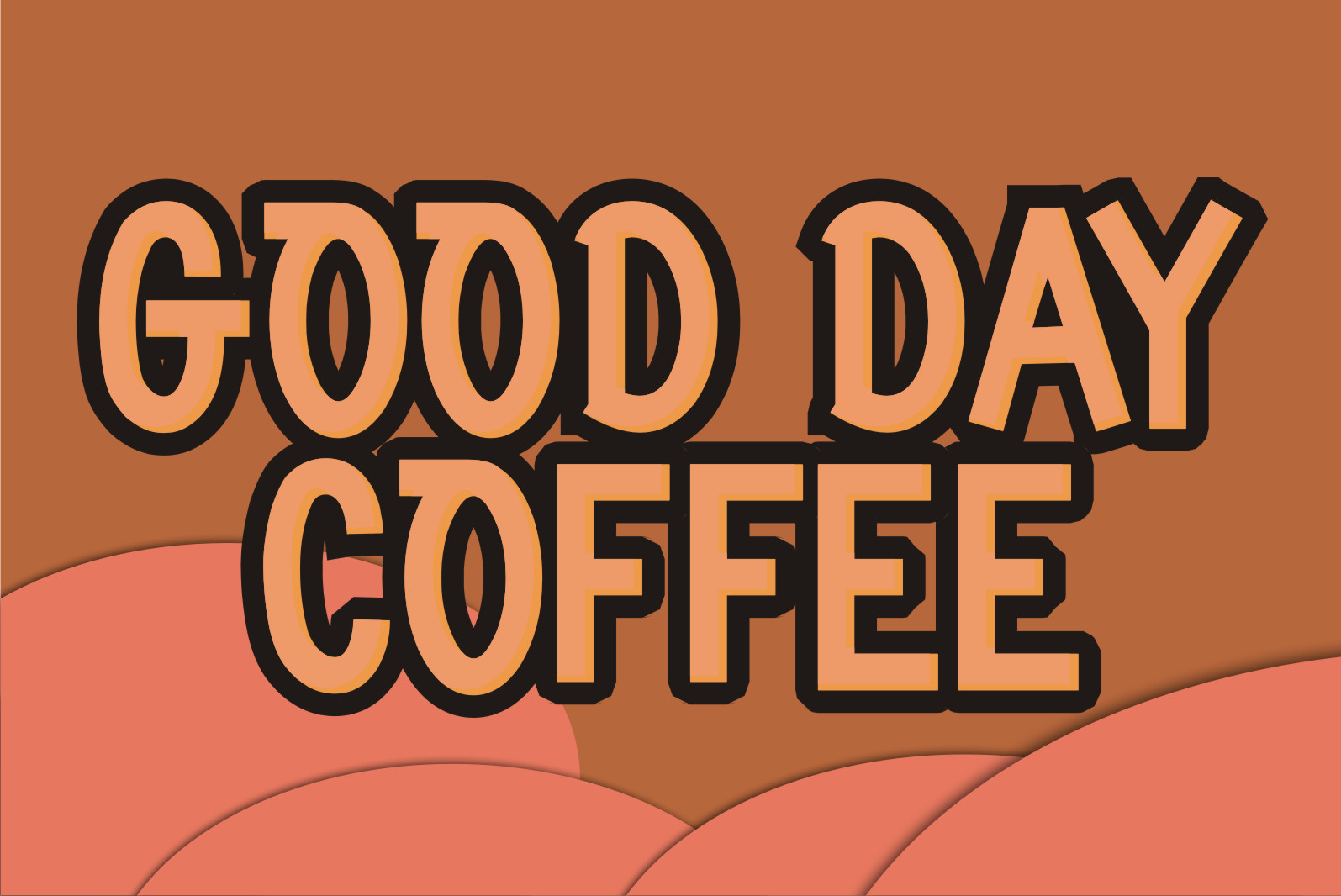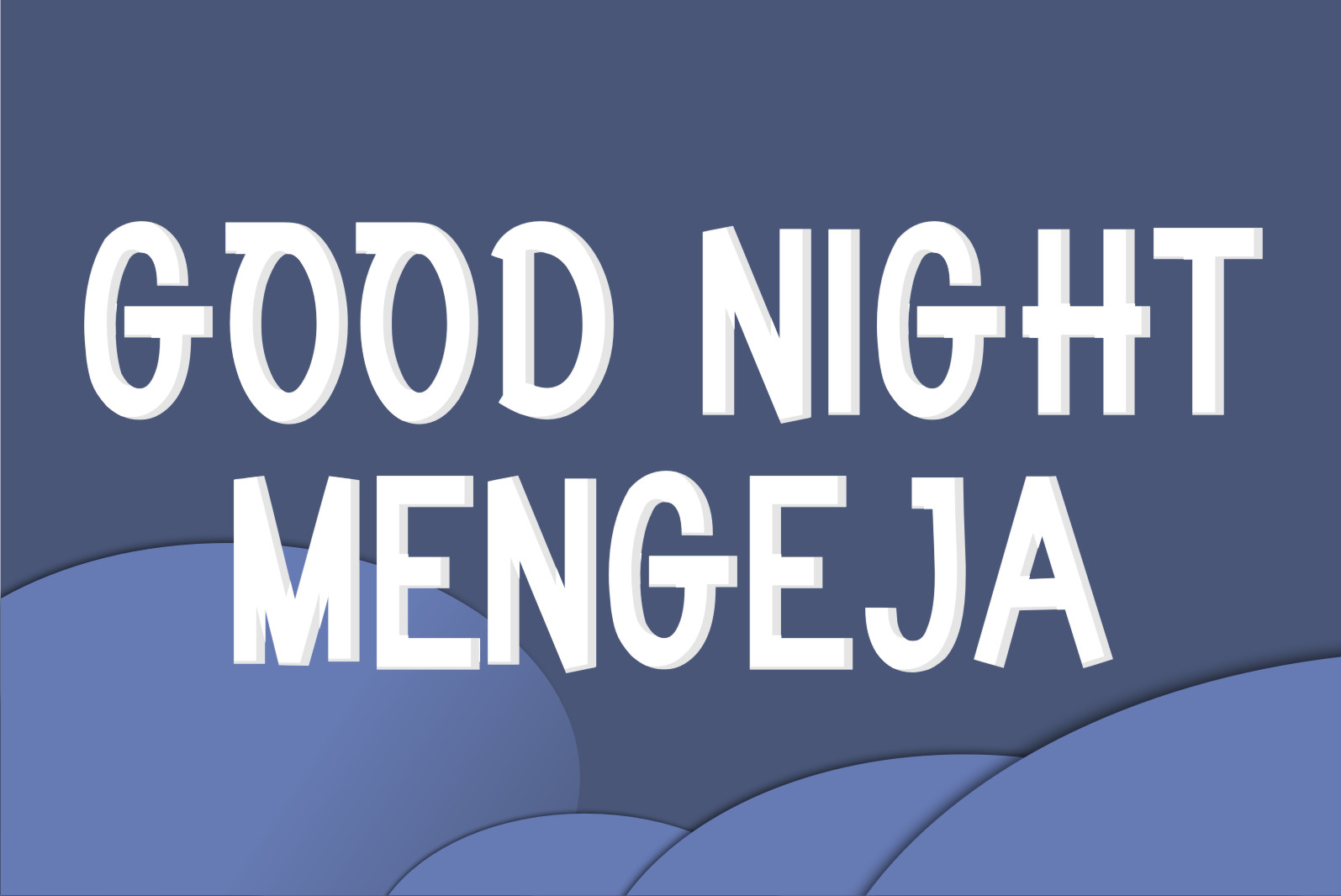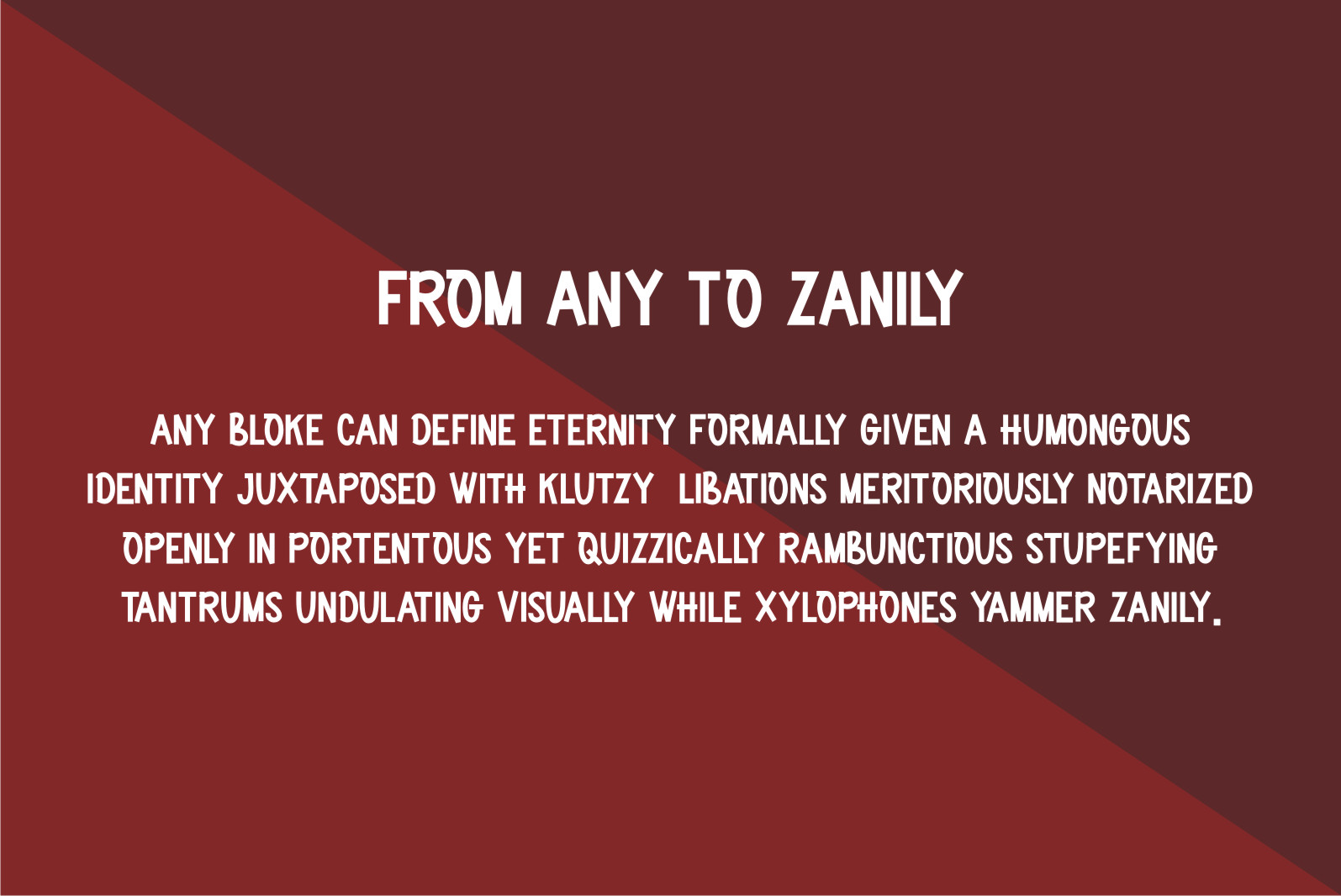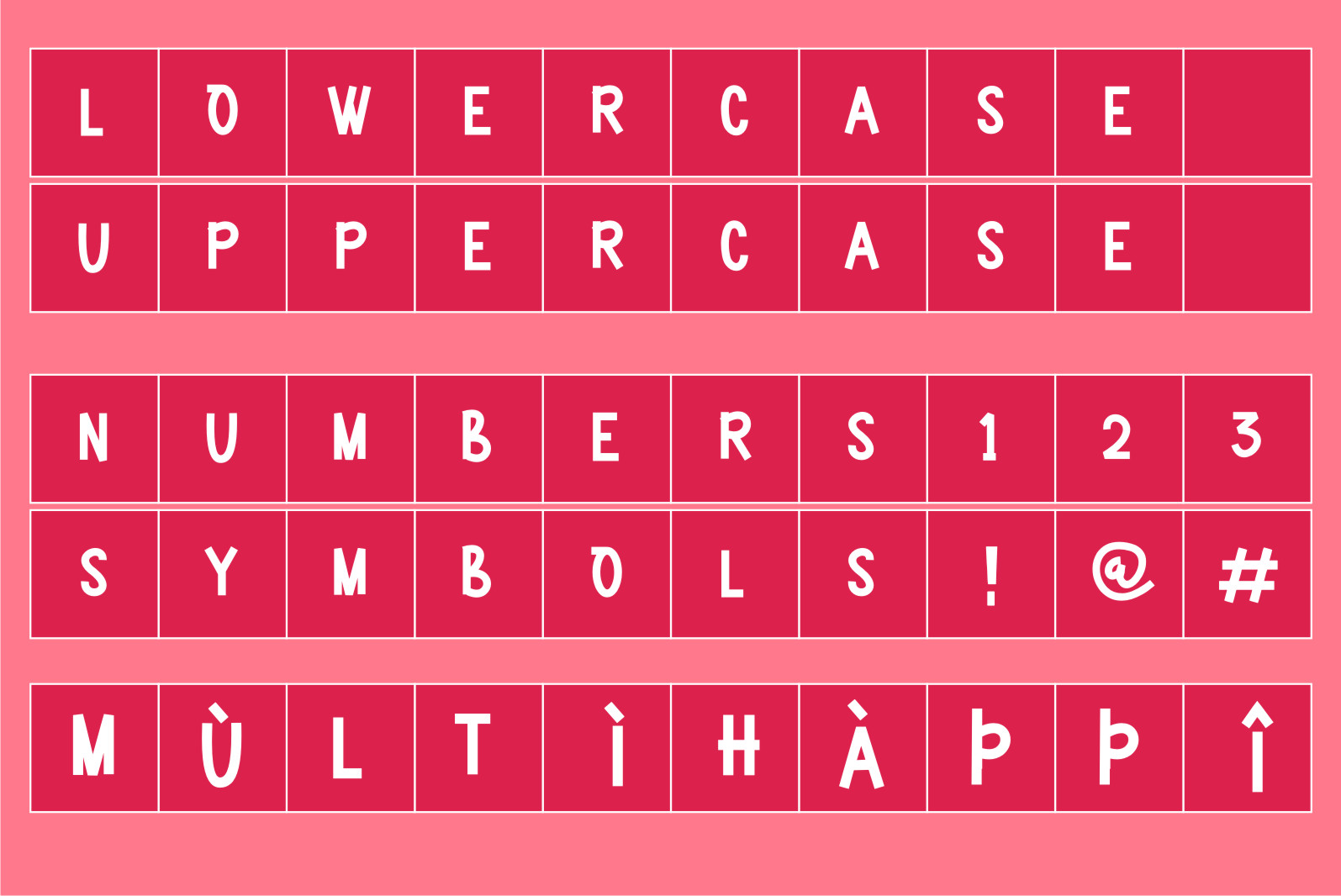
Mengeja Display Font
It’s a cool and trendy-looking display font. You can add this typeface on posters, children’s books, school projects, comics, book titles, and many more.